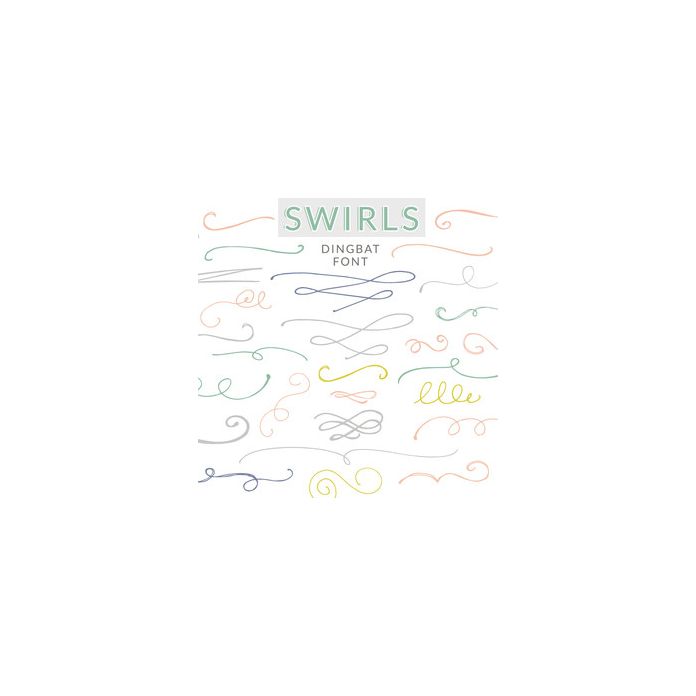
Meet the cute little swirls dingbat font by Angie Makes. Uppercase A-Z and lowercase a-z all feature a cute, hand drawn doodle-y swirl. Use these as decorative borders and in typography designs. So many possibilities!